Do you know Google Fonts? If you are tired of using the same font when you write a document. Or when you’re creating something? In that case, we recommend you take a tour of Google Fonts.
Google Fonts, Google’s font store
What you can find at Google Fonts, free fonts
Once you get into Google Fonts, you’ll find lots of different fonts that you can later use in other programs. Right now, you can find over 900 font families available for free download.
So, whatever you’re looking for, you’re sure to find one that suits you.
Some sources will be more classic , others more fun and others more serious. The variety is so vast that you’re almost certain to find what you’re looking for.
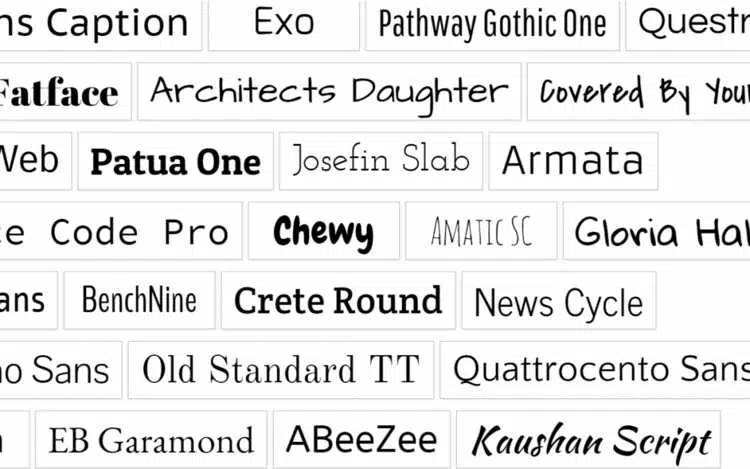
How to Find Fonts in Google Fonts
Do you know the name of the font you want to download? At the top right of the screen, you will find a search engine. By entering the name you’re looking for there, you’ll be able to find out if it’s available.
Not sure what you’re looking for? On the main screen, you can find the latest trends. That means the most recently downloaded fonts. You can also browse the categories you find in the menu on the right. You can even select those fonts available in your language.
Once you choose a familiar font, you can customize it and make some changes to it. When you’re done customizing the font to your liking, it’s simple to download and install the corresponding program.
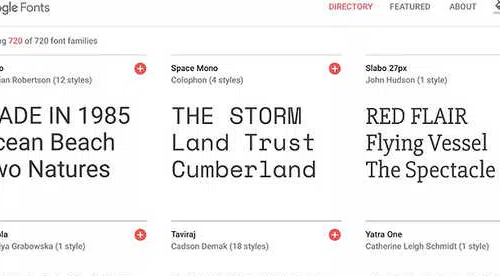
How to use fonts from Google Fonts